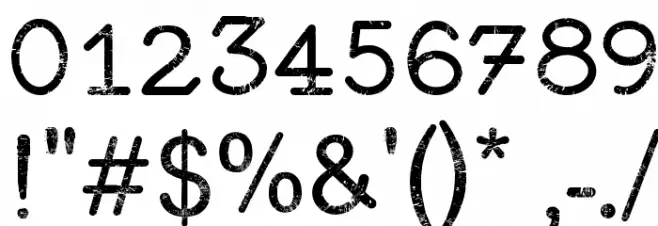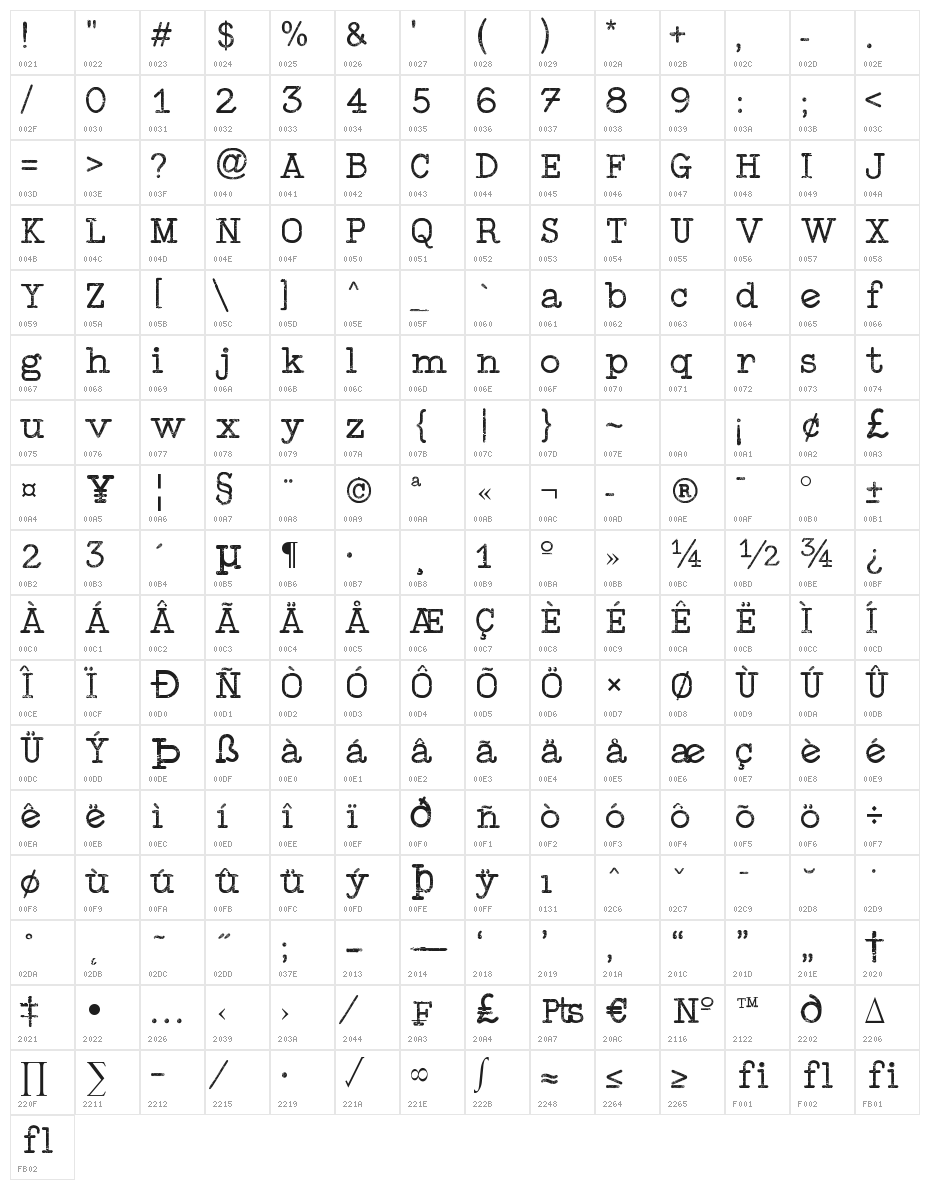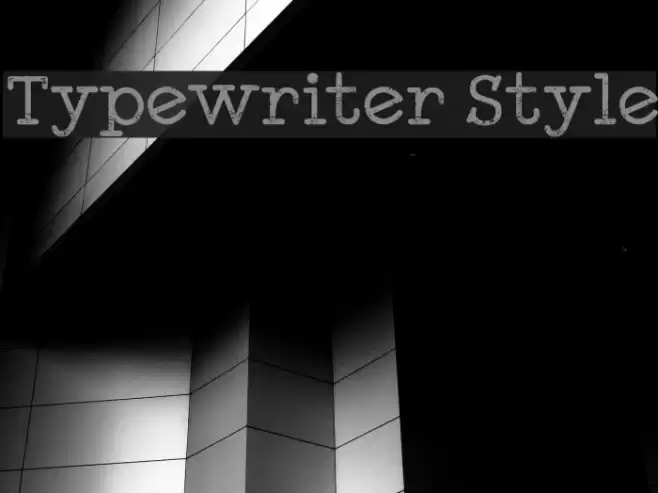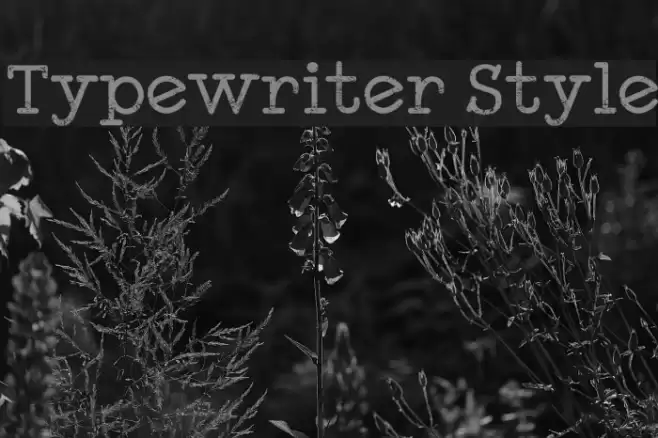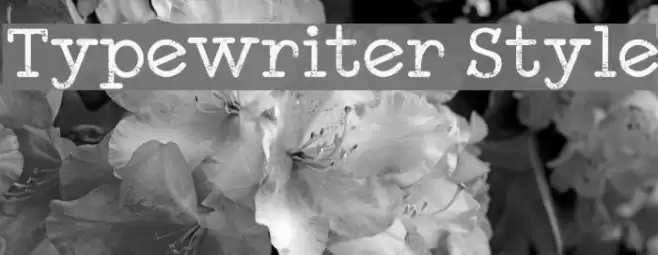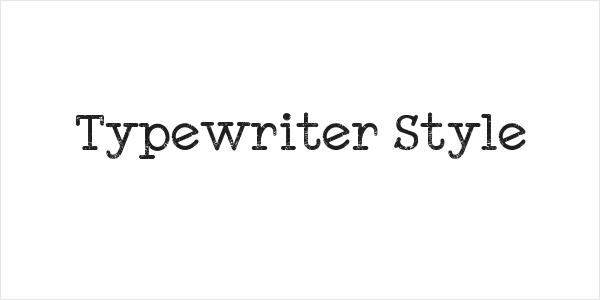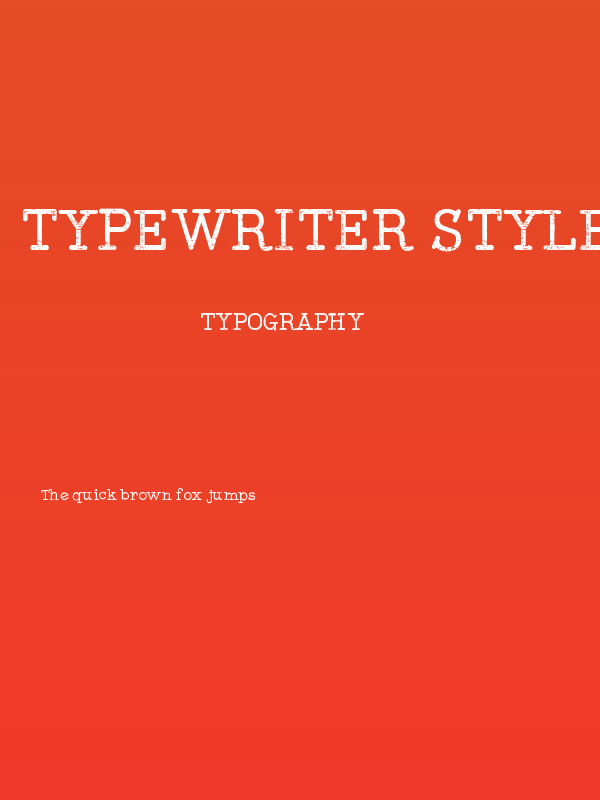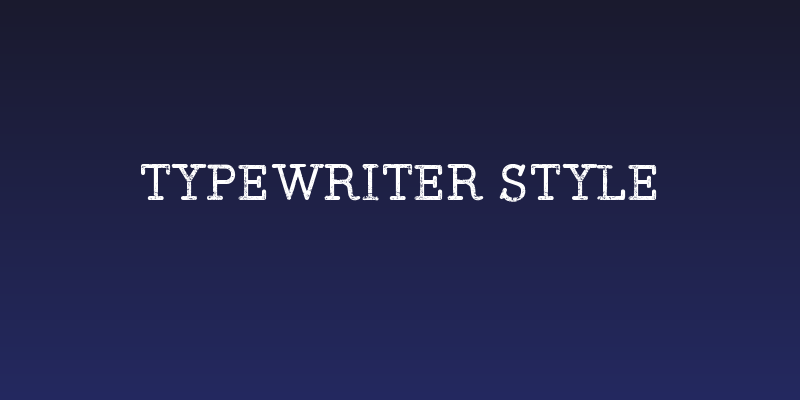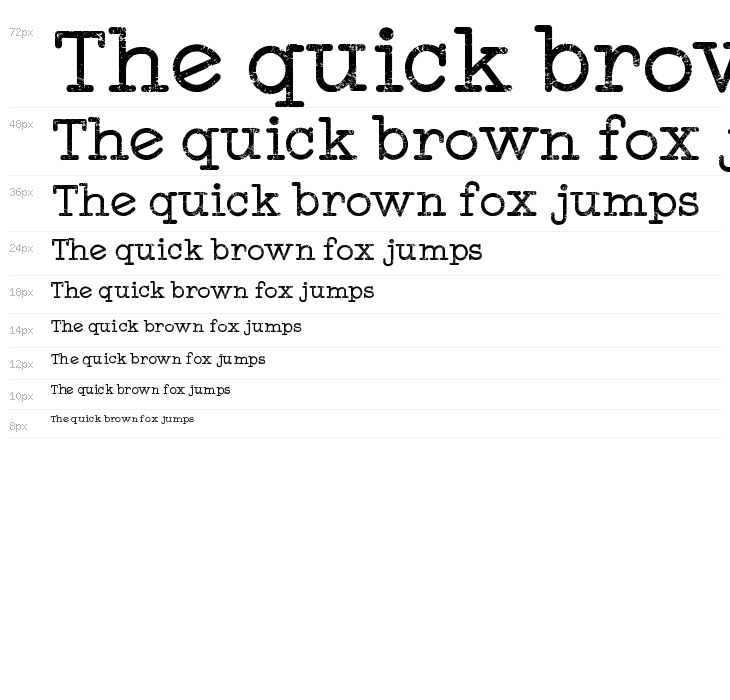
Typewriter Style Font
Typewriter Style Description
This font captures the nostalgic essence of vintage typewriters, characterized by its monospaced design and slightly distressed appearance. Each character is uniformly spaced, reminiscent of old mechanical typewriters, giving it an authentic, retro feel. The letters are bold and clear, with a subtle texture that suggests wear and tear, adding to its charm. This texture gives the font a unique, tactile quality, making it ideal for projects that require a touch of nostalgia or a handcrafted look. The uppercase and lowercase letters maintain a consistent style, while the numerals and special characters are easily readable, enhancing its versatility.
Overall StyleVintage
Proposed ProjectsIdeal for retro-themed designs, vintage posters, typewriter-inspired projects, and any creative work that seeks to evoke a sense of nostalgia.